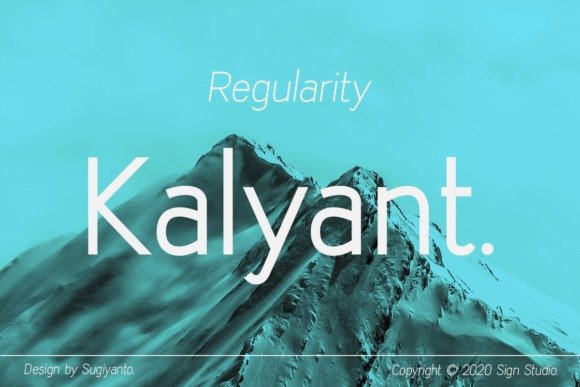
Kalyant Sans Font Family
Kalyant is a simple and casual sans serif font with an undeniably clean feel. With its neat and beautiful arrangement of letters, this typeface will look outstanding in both formal and non-formal designs.
Kalyant’s design is based on the idea of taking perfectionist geometric shapes and making them funky! With gentle tweaks here and there, the glyphs are deliberately designed to look more humane and fun. Same fonts are also presented with round corners, giving it an even more gentle look.
Latin poster design and graphic art was an inspiration to design Kalyant, so it has Latin vibes all around it. The end result is a clean legible text font that can also work nicely as a display font for big, fun headlines.
It has 6 weights with true italics in each normal and rounded set. From designs for children to packaging, posters, mobile apps and games, it’s perfectly suitable for any design wherever you need to brighten the mood.